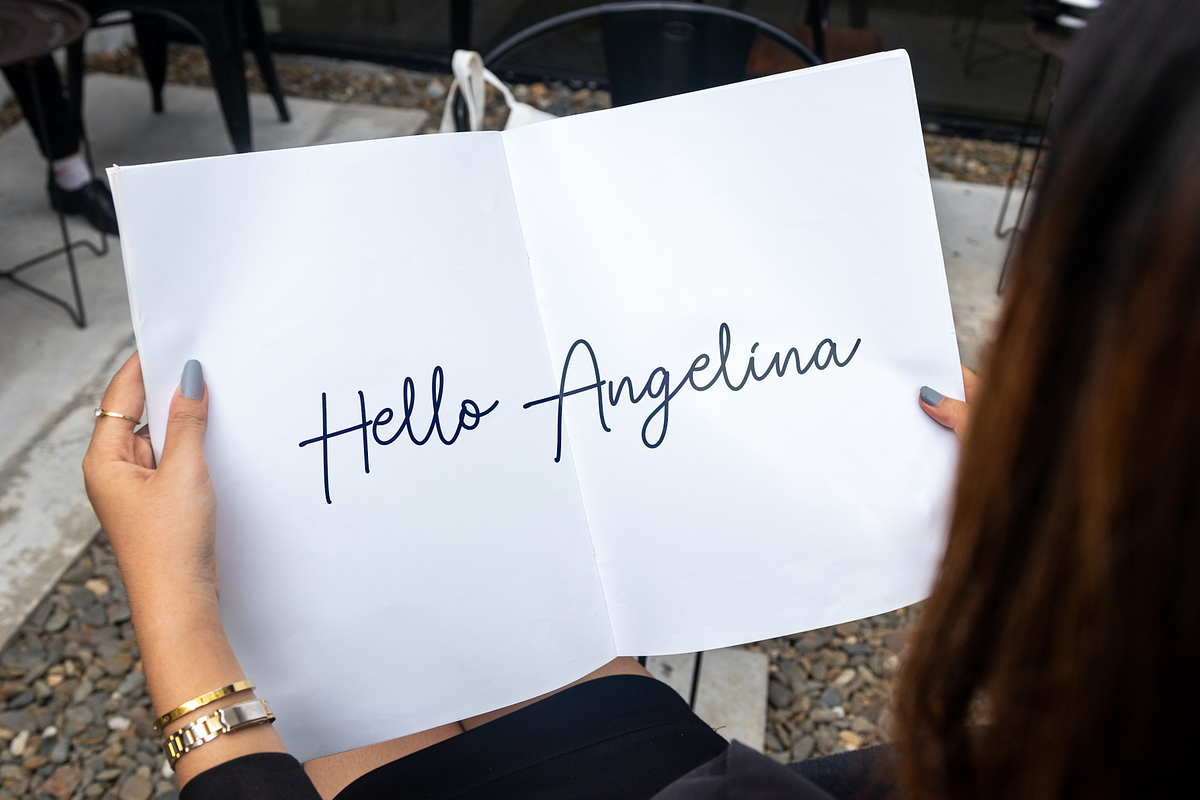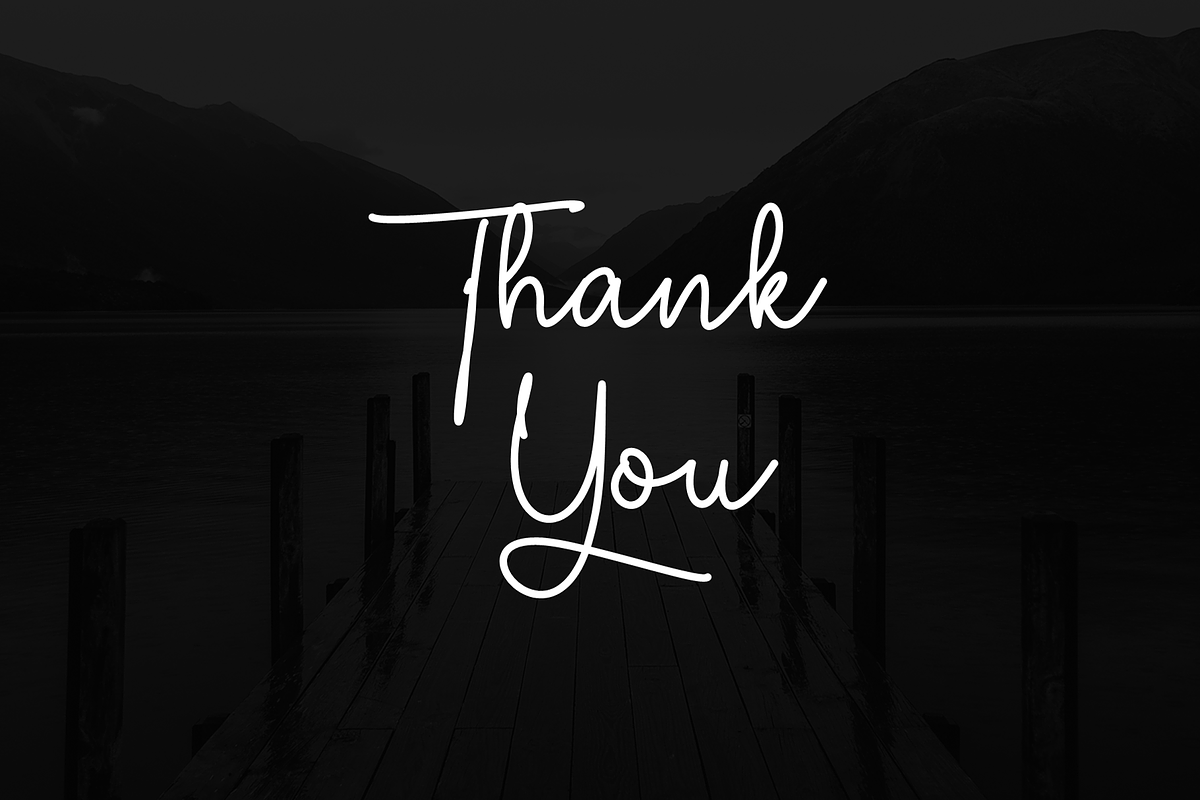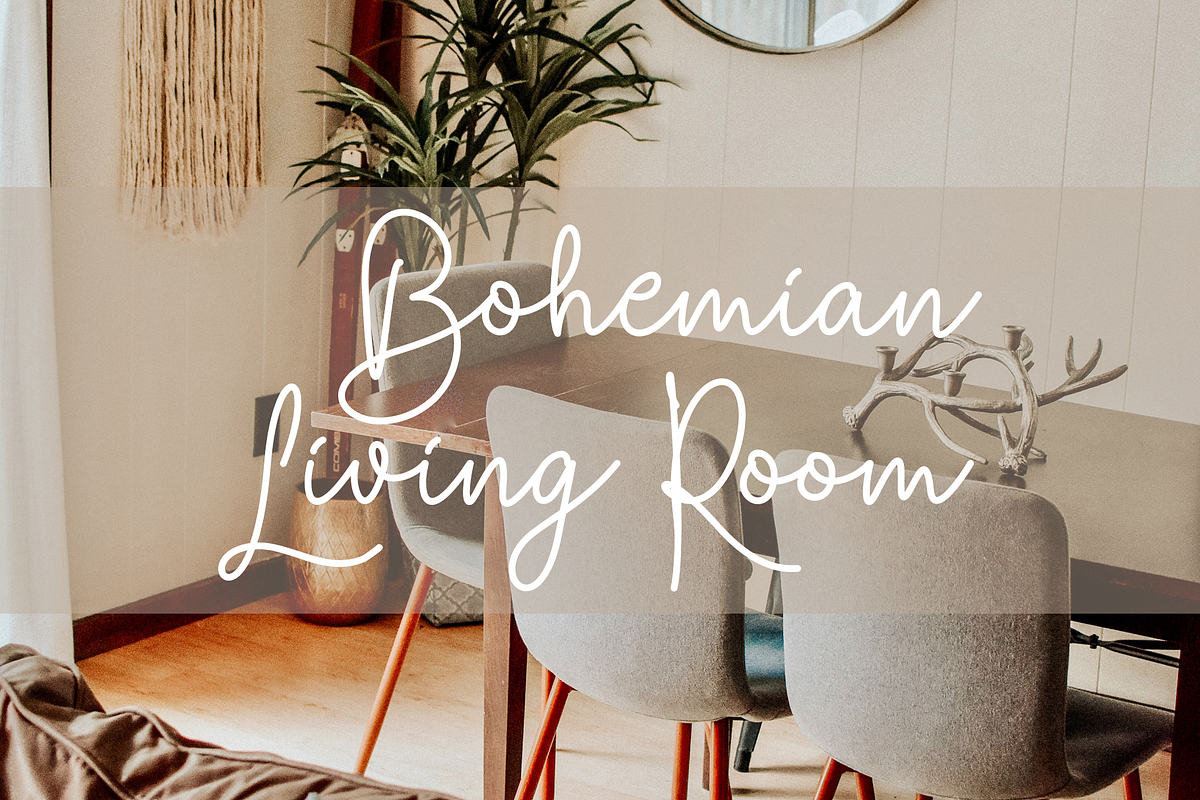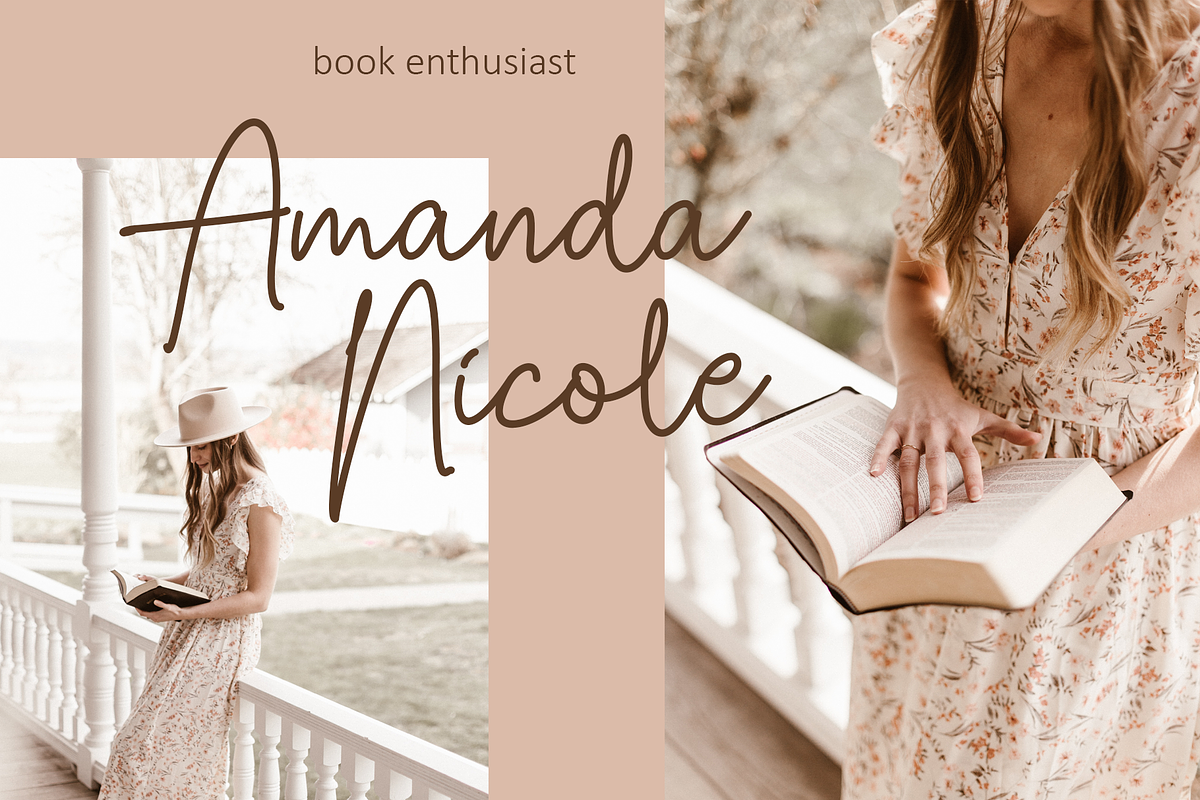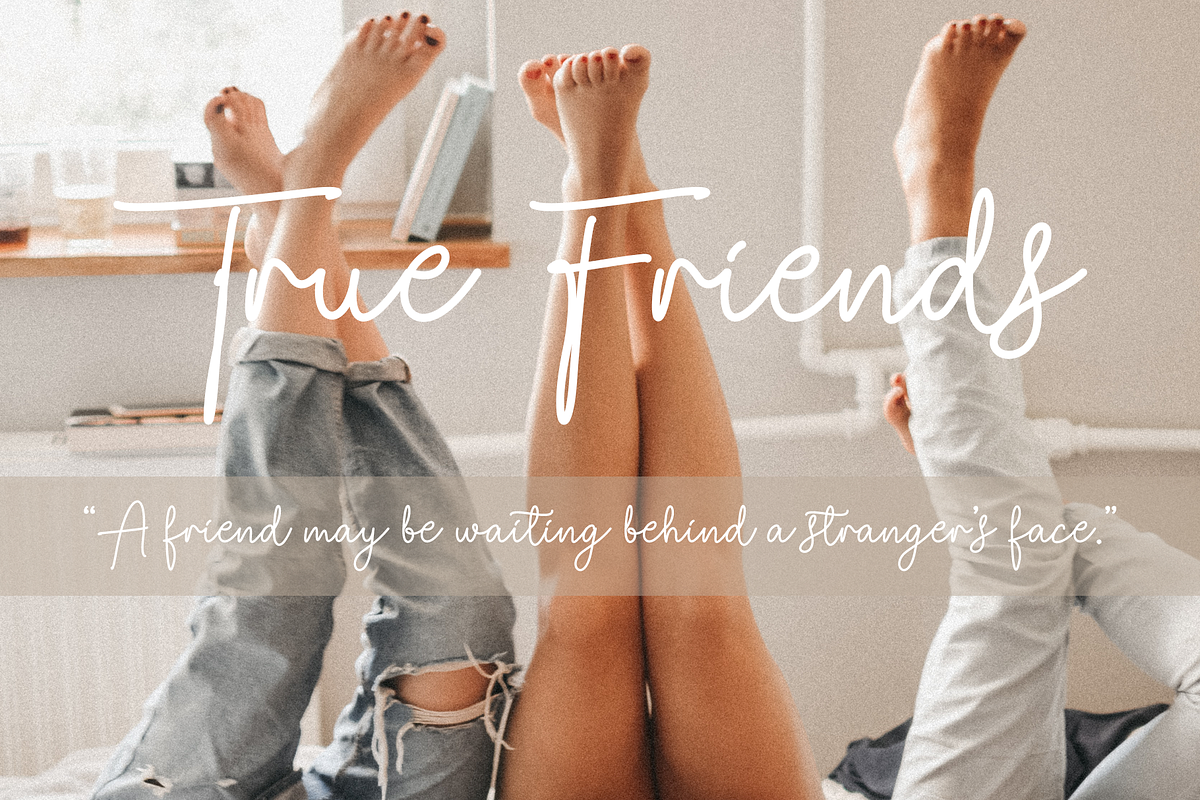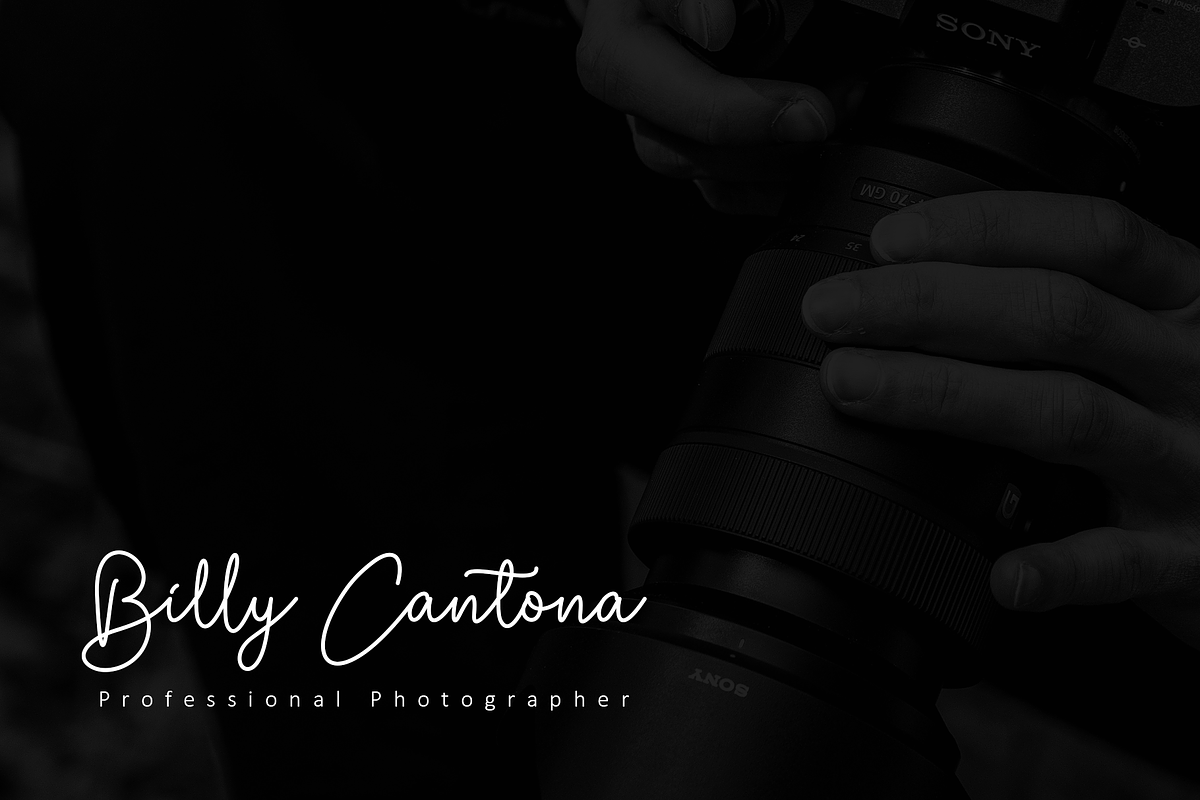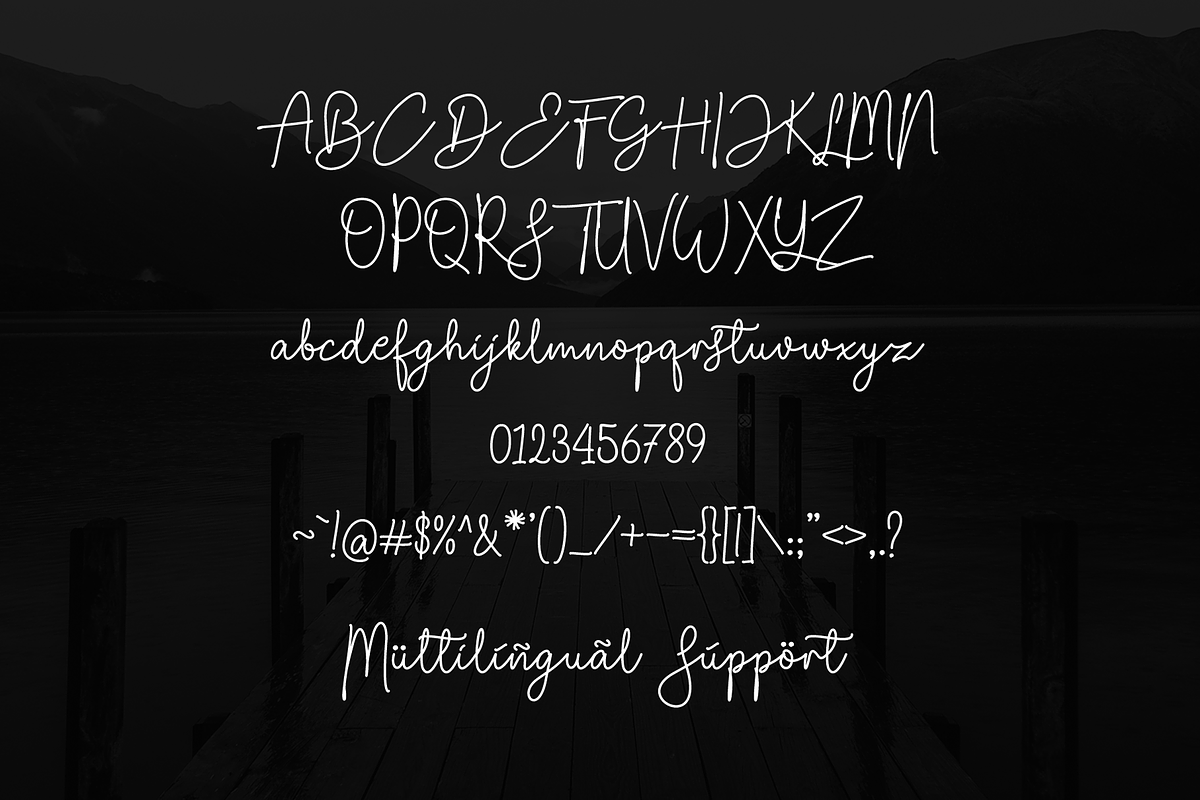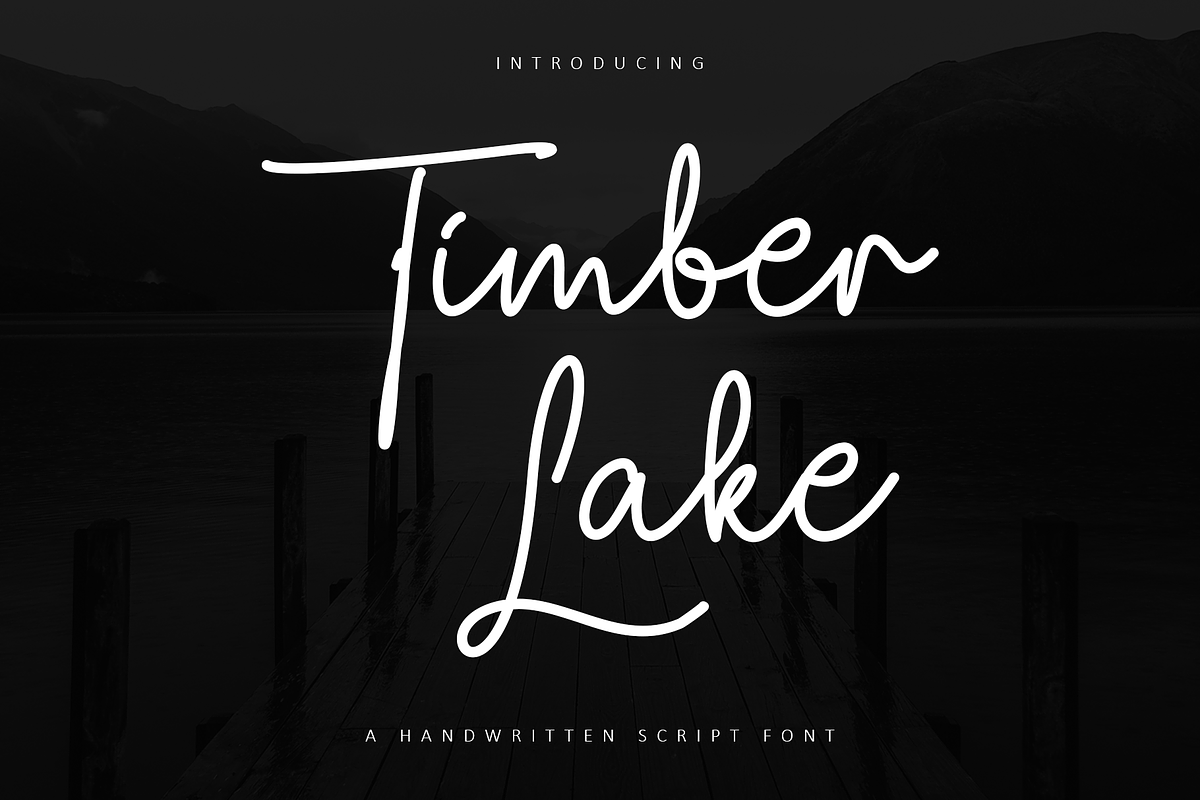
Timber Lake
Timber Lake is handwritten font with unique and elegant style. It is perfect for any signature, namecard design, branding projects, product packaging, quotes, logos, book covers, and many other awesome projects. With the combination of elegant and casual style.